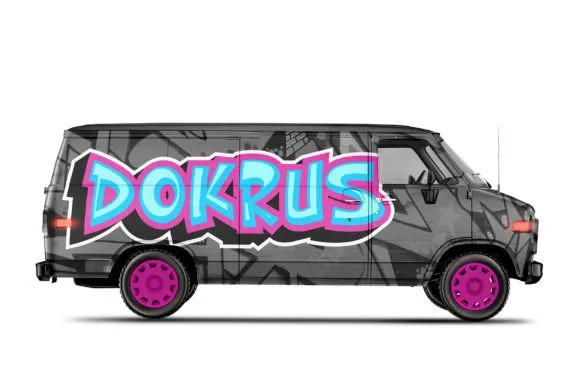
Bolder Shadow Font ttf is a metropolitan spray painting text style portrayed by sharp edges and a strong look. Ideal for music banners, clothing plans, shirts, and streetwear, this text style carries a bit of tenseness to your ventures.
Whether you need to make major areas of strength for a strong assertion or just add a dash of demeanor to your plans, “Bolder Shadow Font ttf” is the most ideal textual style for you.